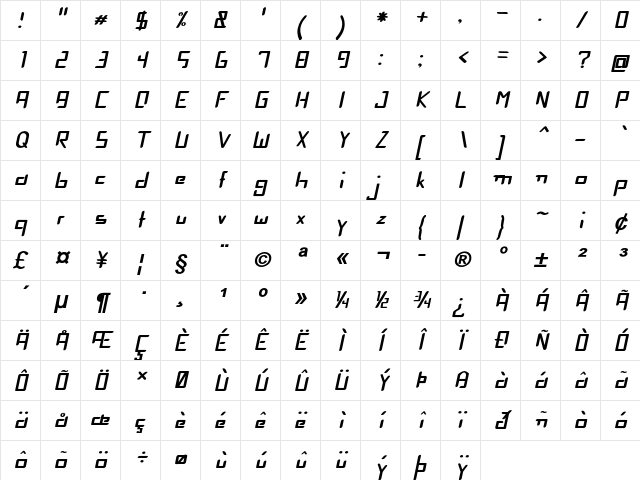
Narxus Bold Italic
Design Context for Narxus
Narxus is a composed and adaptable typeface that performs quietly and consistently across a wide range of design contexts. The slanted form adds forward momentum and visual energy. Its bold stroke weight gives it real presence on the page.
Pro Tip: Use Narxus for emphasis, pull quotes, and subheadings where its slanted energy can add rhythm to the layout.